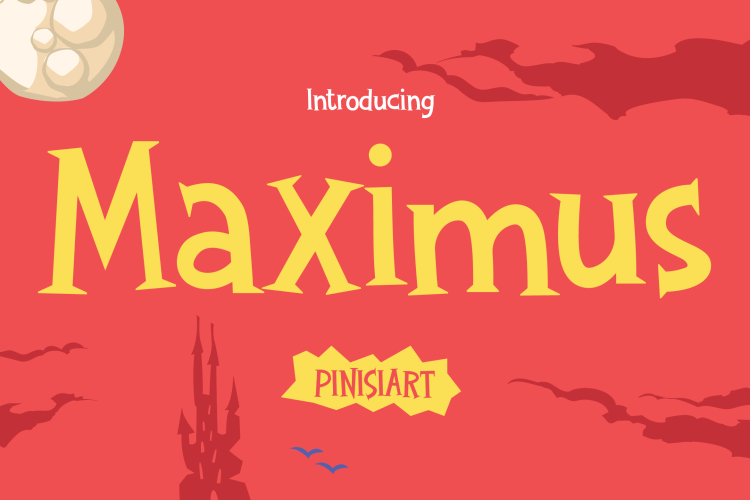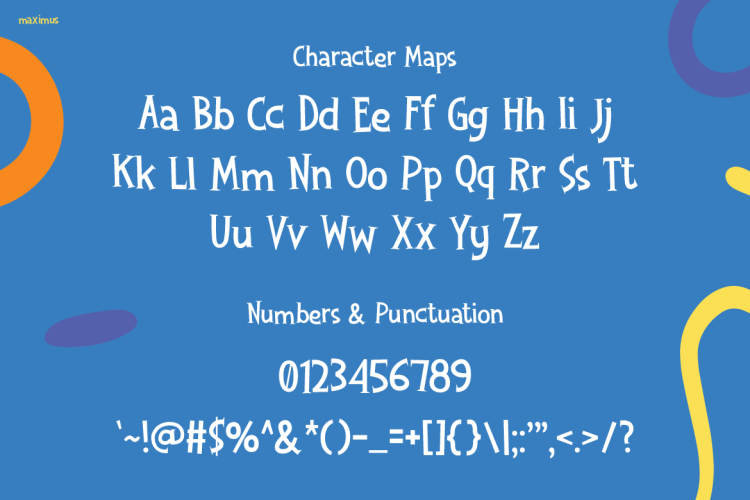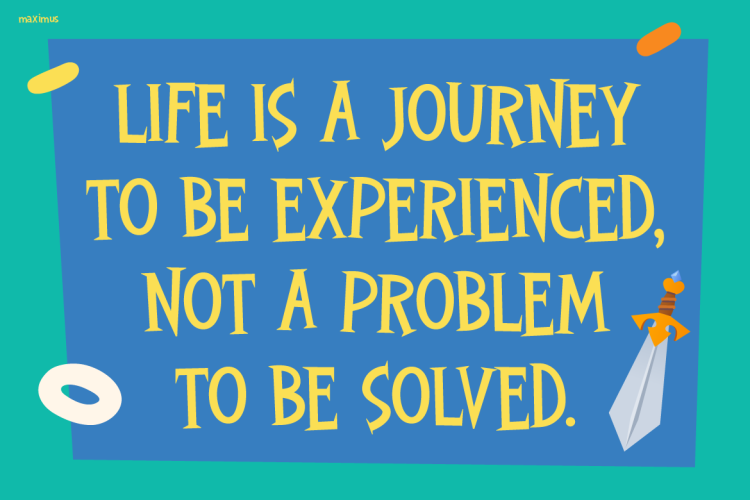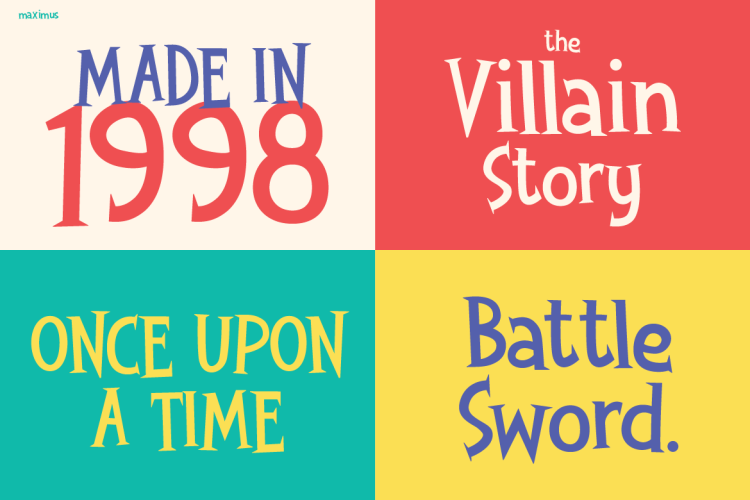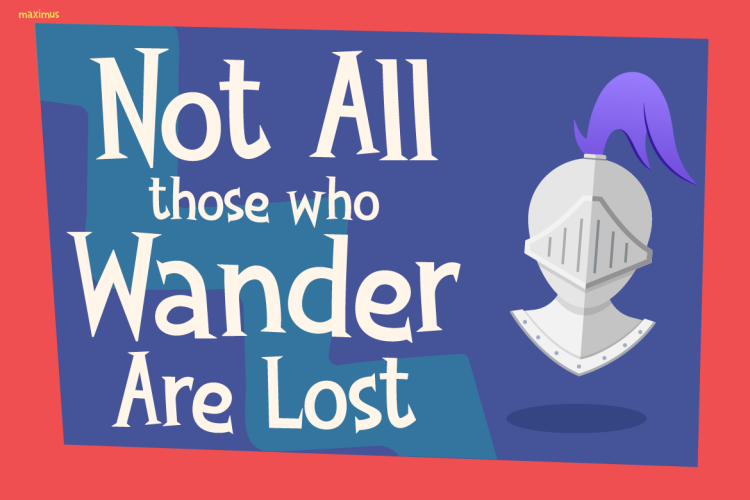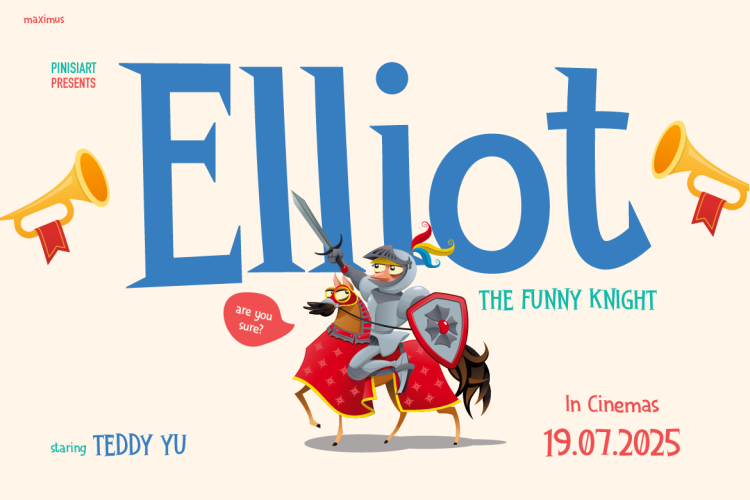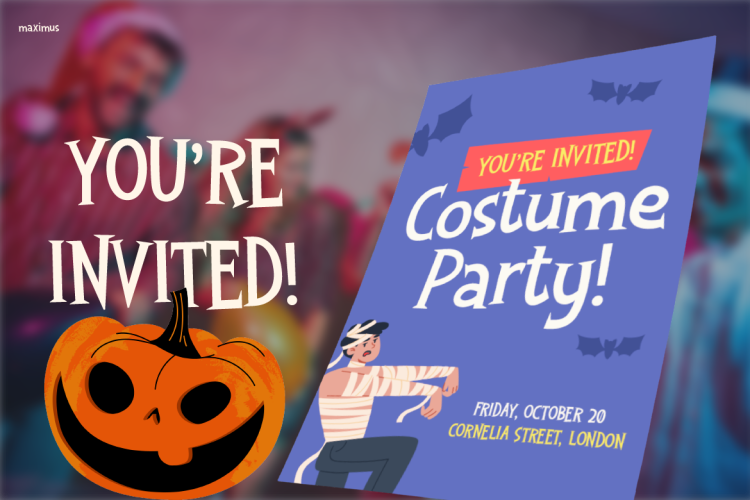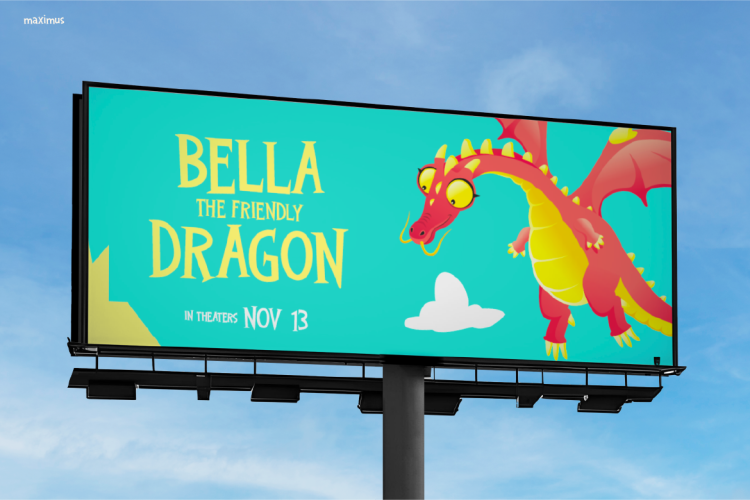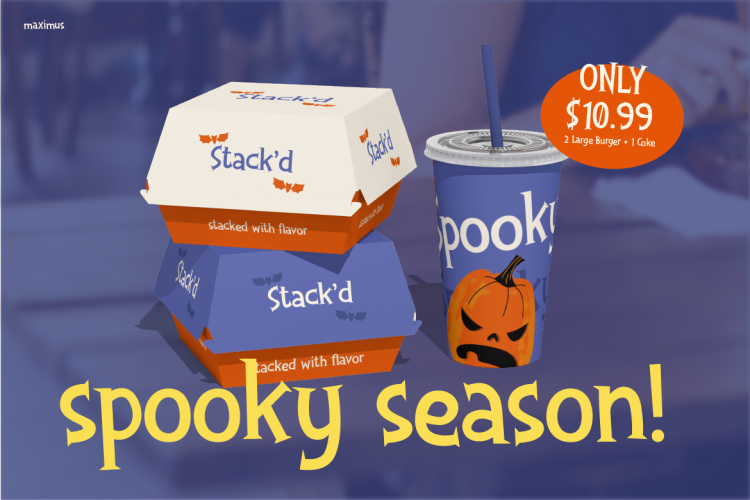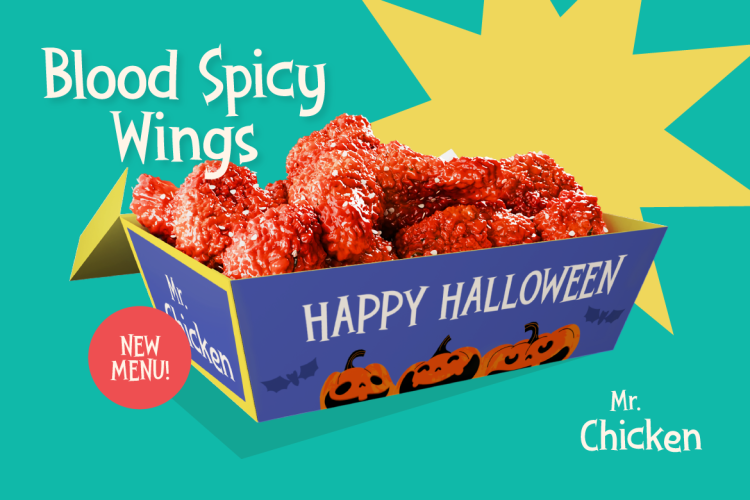
Kids Font Maximus โ Playful, Bold, and Full of Imagination!
Kids Font Maximus is not just a font โ itโs a world of fun and creativity brought to life! Designed with smooth curves, bouncy shapes, and joyful energy, this font captures the pure spirit of childhood imagination. Every letter feels cheerful and expressive, making your design instantly more engaging. Moreover, its rounded edges and hand-drawn balance give it a friendly look that feels both modern and timeless.
Because of its bold personality, Kids Font Maximus turns simple words into delightful art. The letters seem to dance on the page, adding rhythm and charm to every title or headline. As a result, your projects gain warmth, character, and a touch of playfulness that everyone will love. Whether youโre creating childrenโs books, educational posters, or event invitations, this font brings out the fun in every design.
Furthermore, it blends readability with creativity โ so it looks great on both print and screen. From bright classroom walls to digital story apps, Maximus ensures that your message is not only seen but also felt.
Perfect For:
Kids Font Maximus is the perfect choice for anyone who wants to design with joy and personality. Teachers, illustrators, and graphic designers will all find it incredibly useful. For instance, it works beautifully for:
Childrenโs storybooks and colorful illustrations
Learning materials, flashcards, and activity sheets
Toy packaging, birthday invitations, and posters
Animated titles, cartoon branding, and social media visuals
Additionally, the font includes uppercase, lowercase, punctuation, and numerals, giving you flexibility across different types of projects. Its versatility allows you to mix fun with professionalism, especially for brands that speak to families and kids.
Even more, Kids Font Maximus isnโt limited to childrenโs projects. Because of its energetic feel, itโs also perfect for playful lifestyle brands, cheerful event promotions, or any design that needs a touch of whimsy and happiness.
Bring Your Designs to Life!
With Kids Font Maximus, your words come alive with color, excitement, and emotion. It invites your audience to feel the magic behind every letter, turning even simple text into something joyful and eye-catching. So, if you want your designs to shine with personality, this is the font for you.